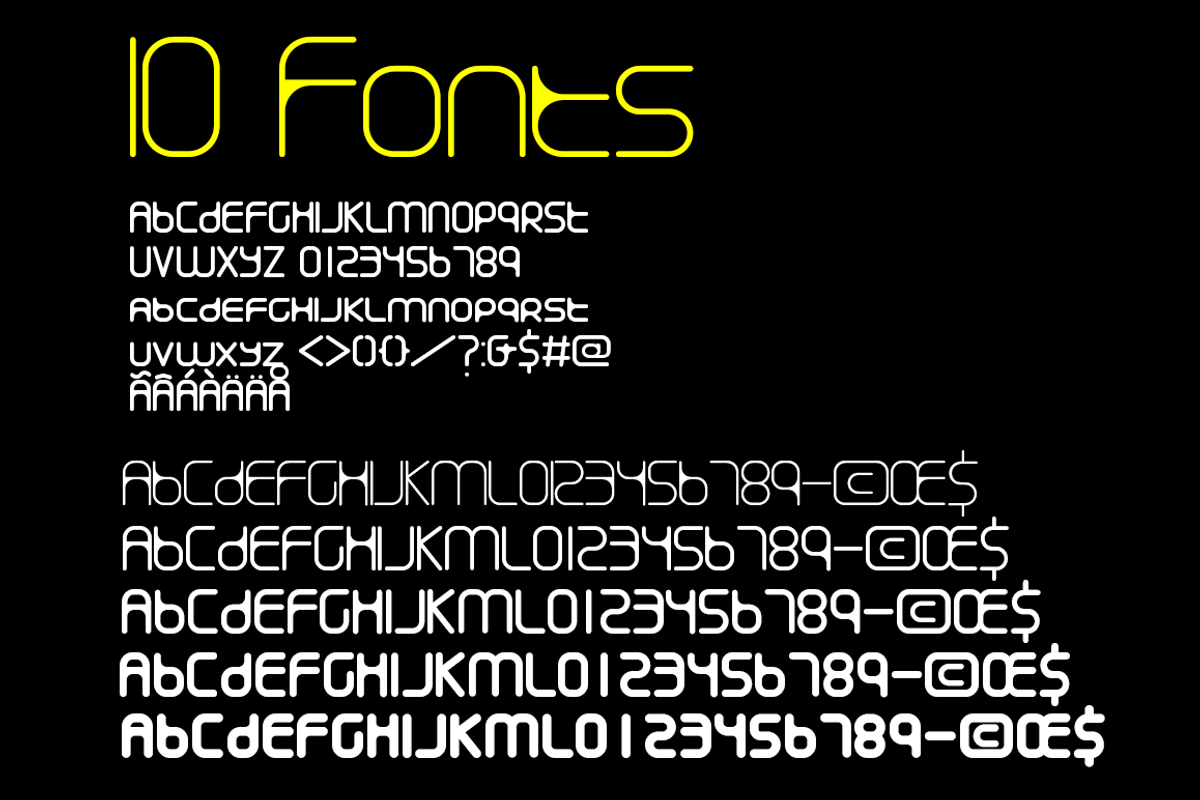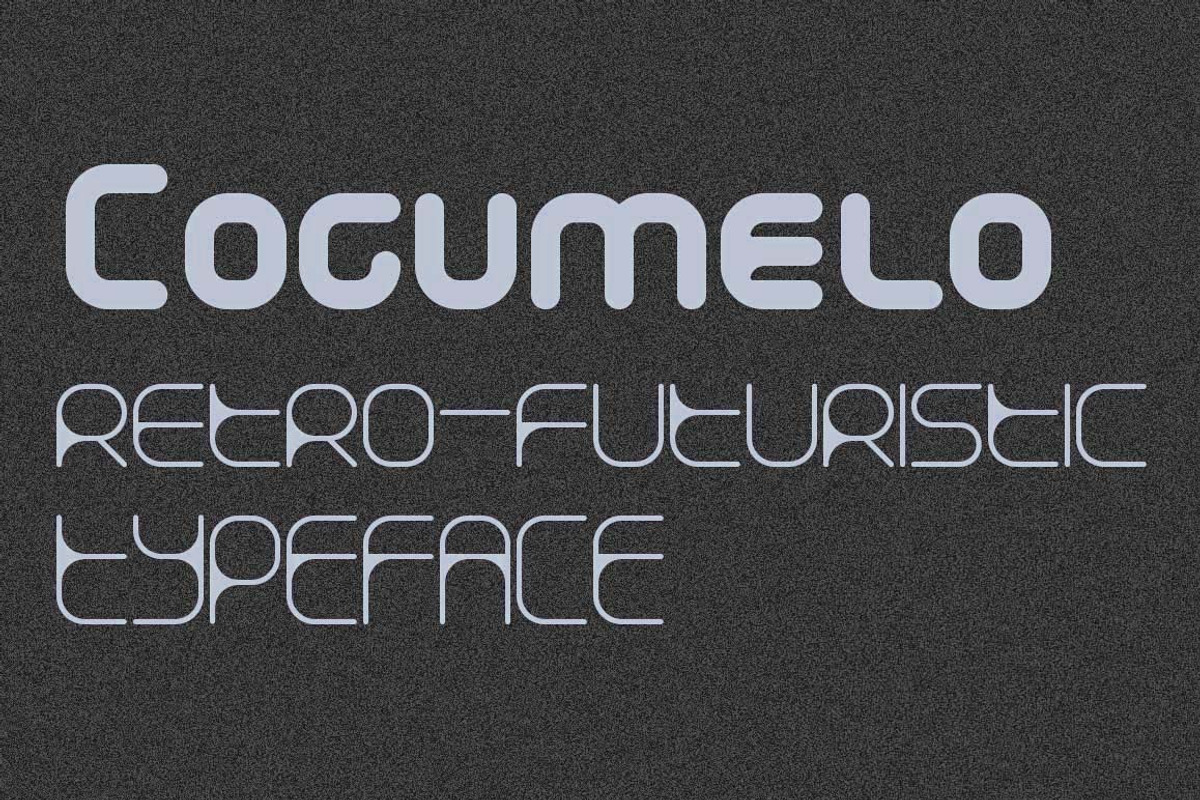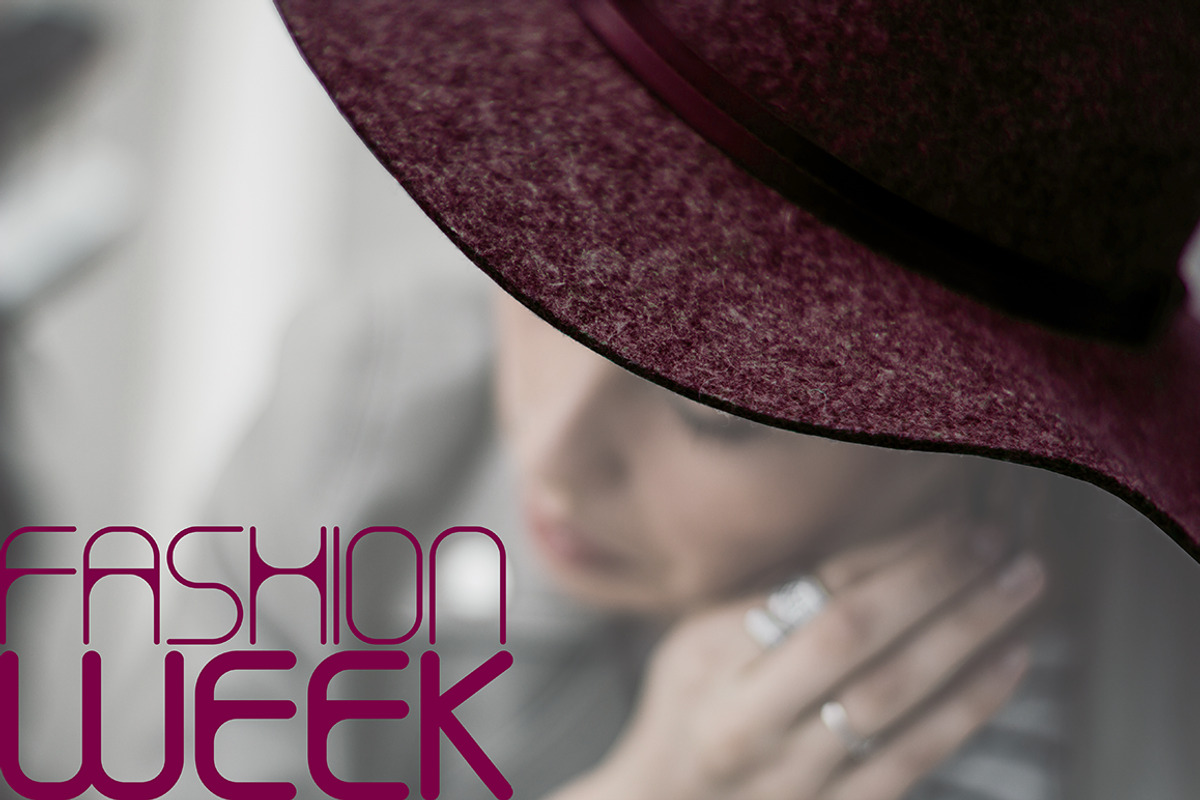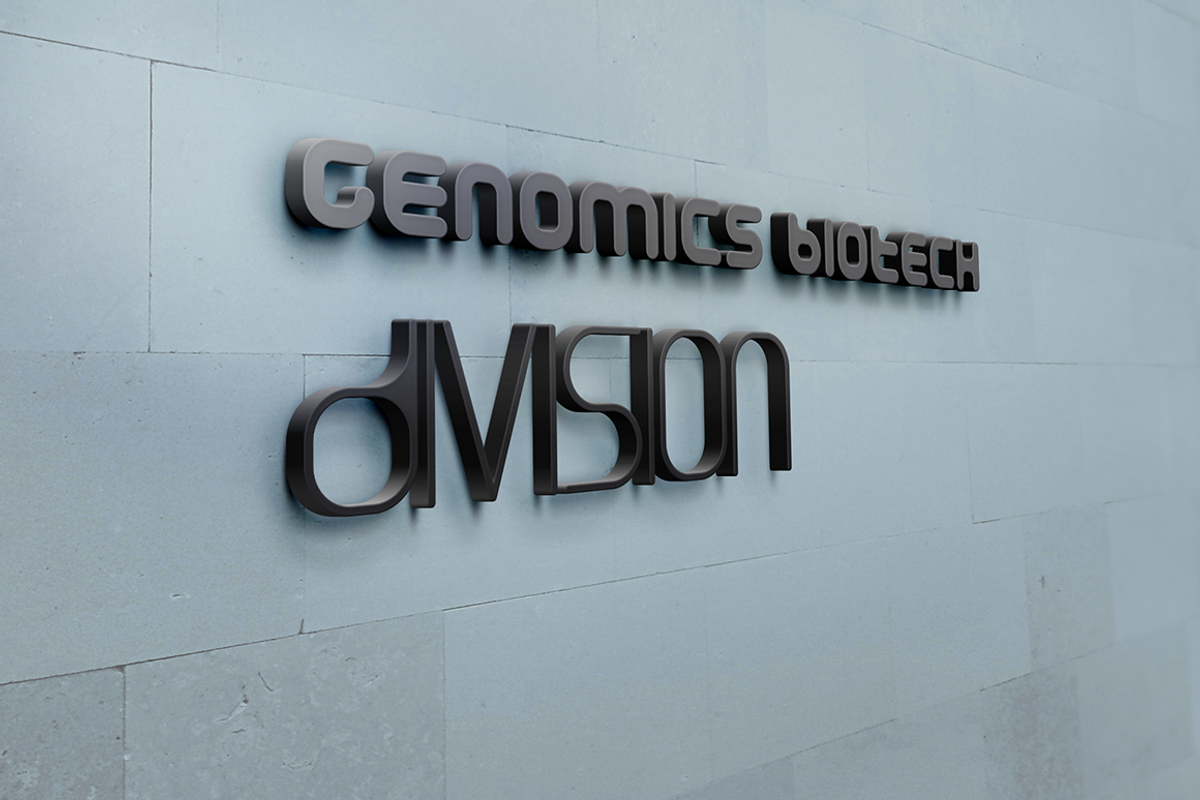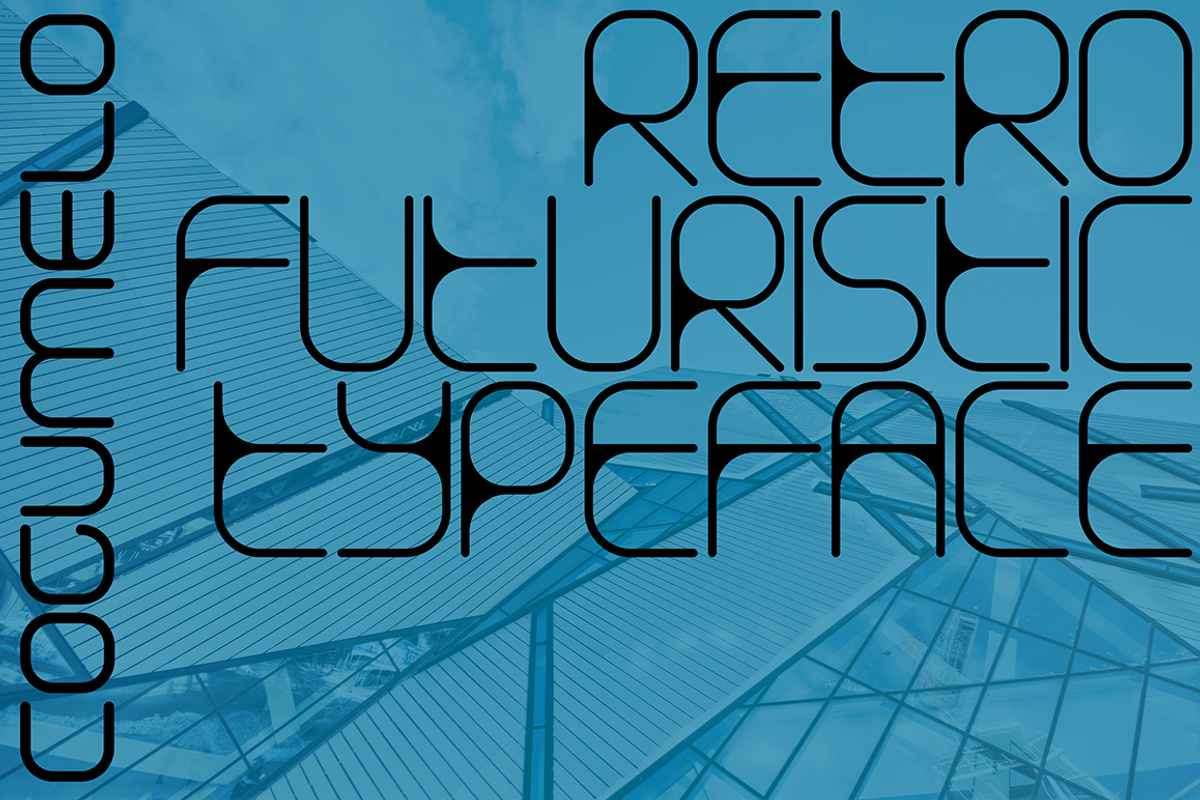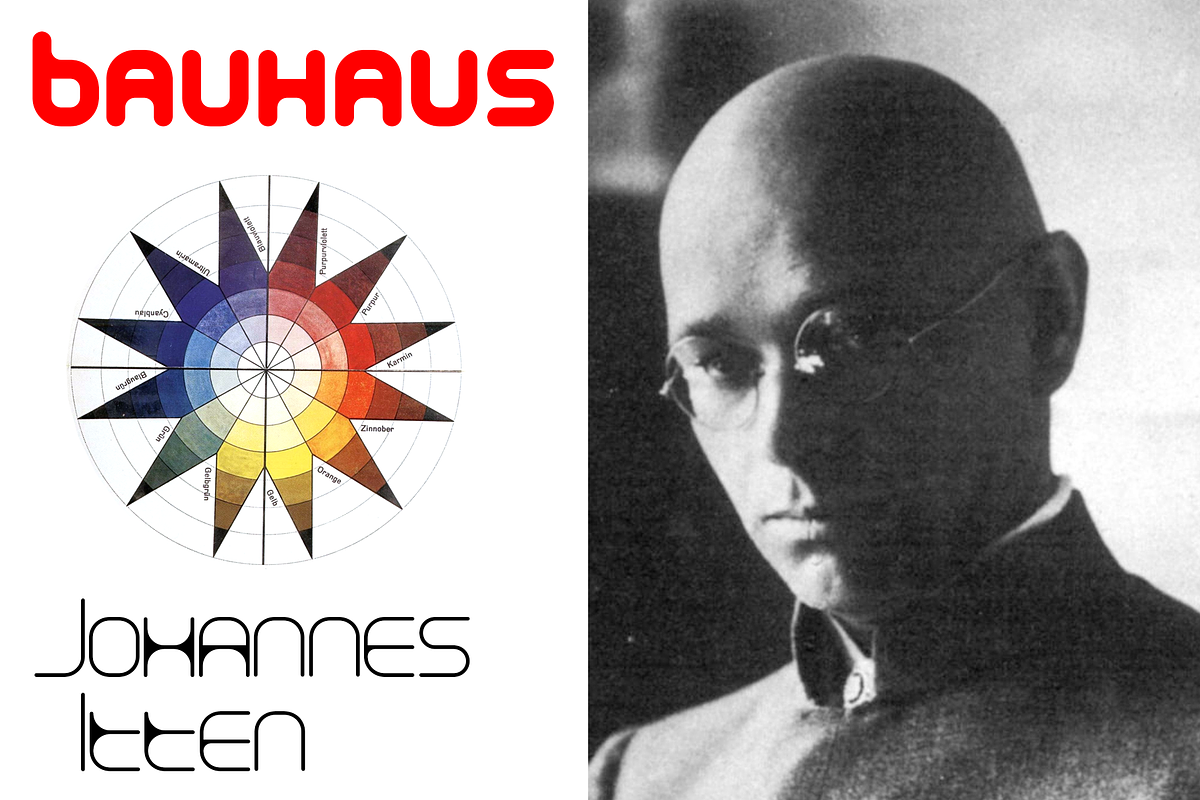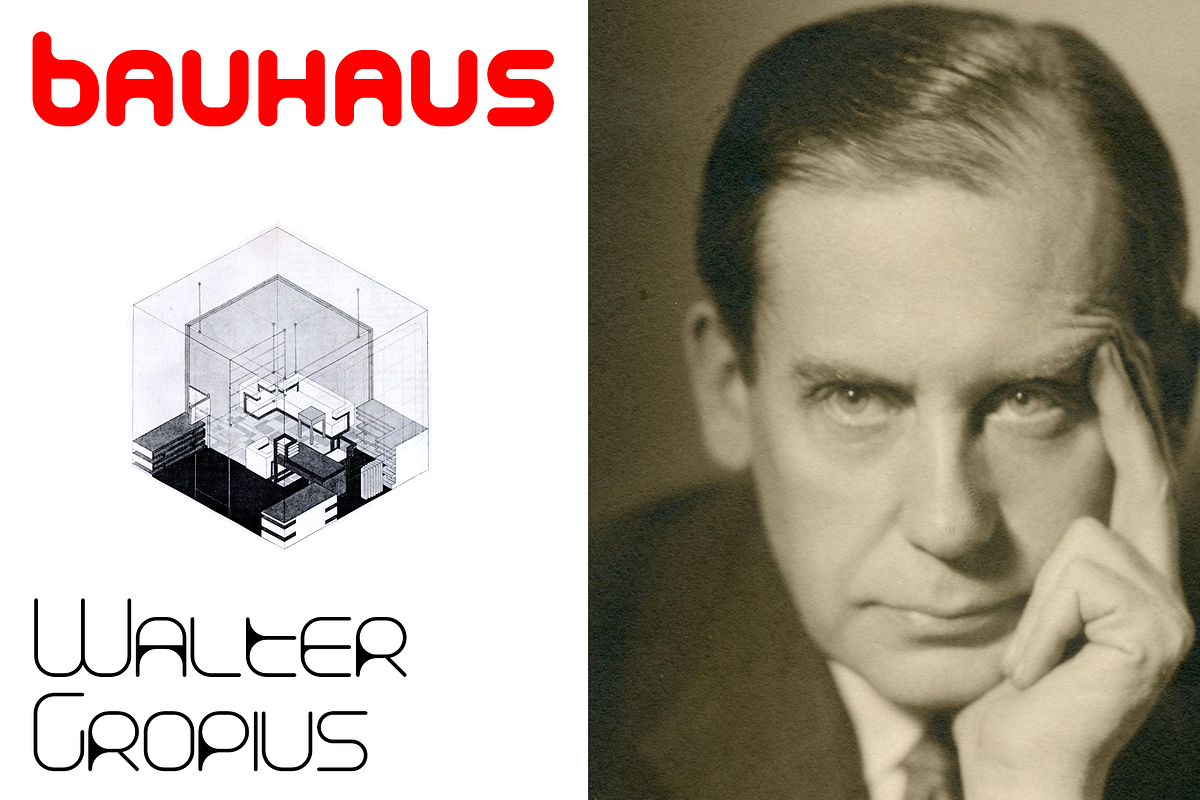
Cogumelo 10 fonts
Cogumelo 10 fonts by Minhocossauro Emporium is a font selected for branding, posters, packaging, typography.
- Cogumelo Thin
- Cogumelo Thin Italic
- Cogumelo Light
- Cogumelo Light Italic
- Cogumelo Regular
- Cogumelo Italic
- Cogumelo Bold
- Cogumelo Bold Italic
- Cogumelo Heavy
- Cogumelo Heavy Italic
Why Cogumelo 10 fonts is worth a look
Cogumelo 10 fonts by Minhocossauro Emporium fits naturally into Branding, posters, packaging, typography.